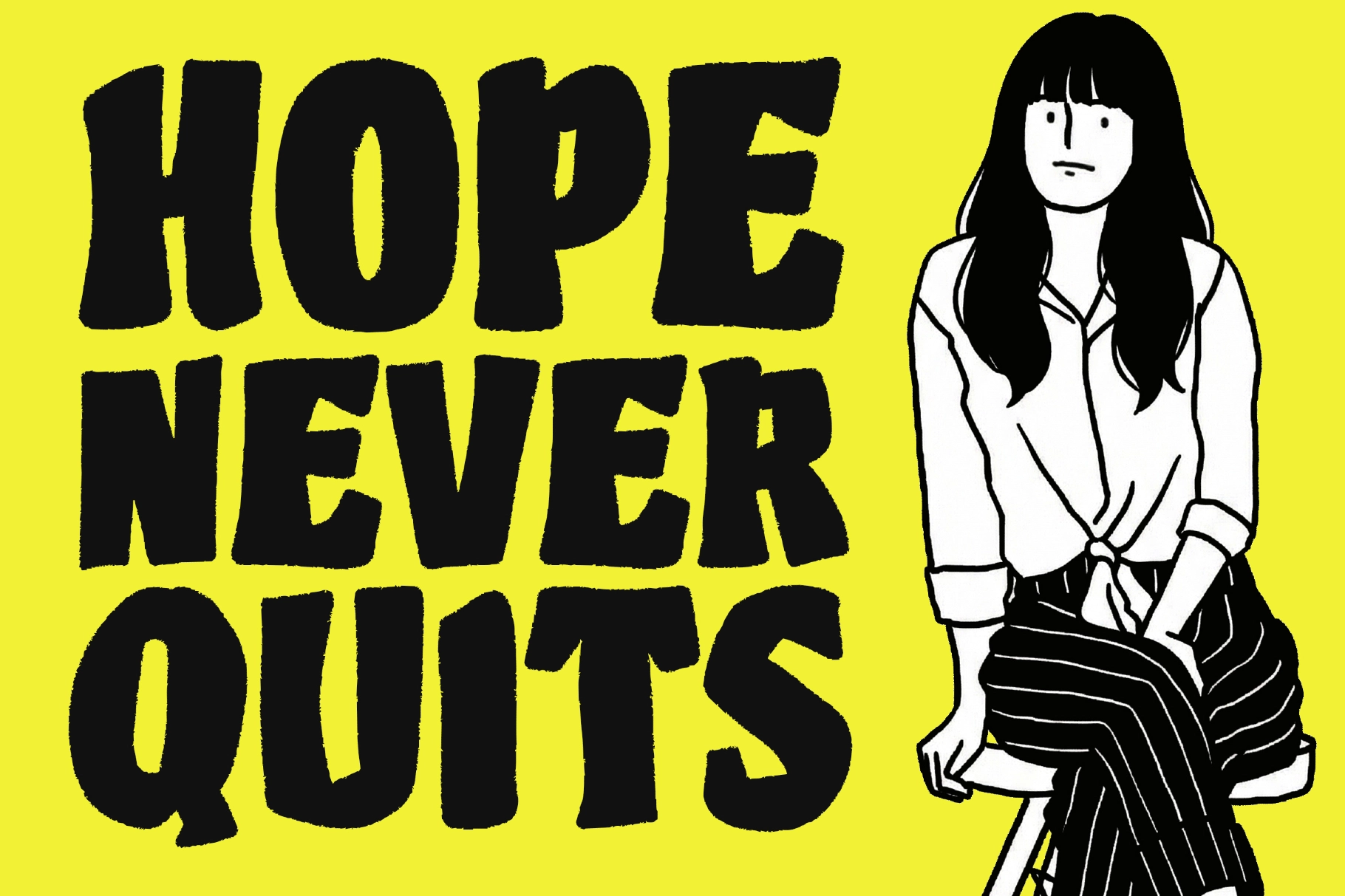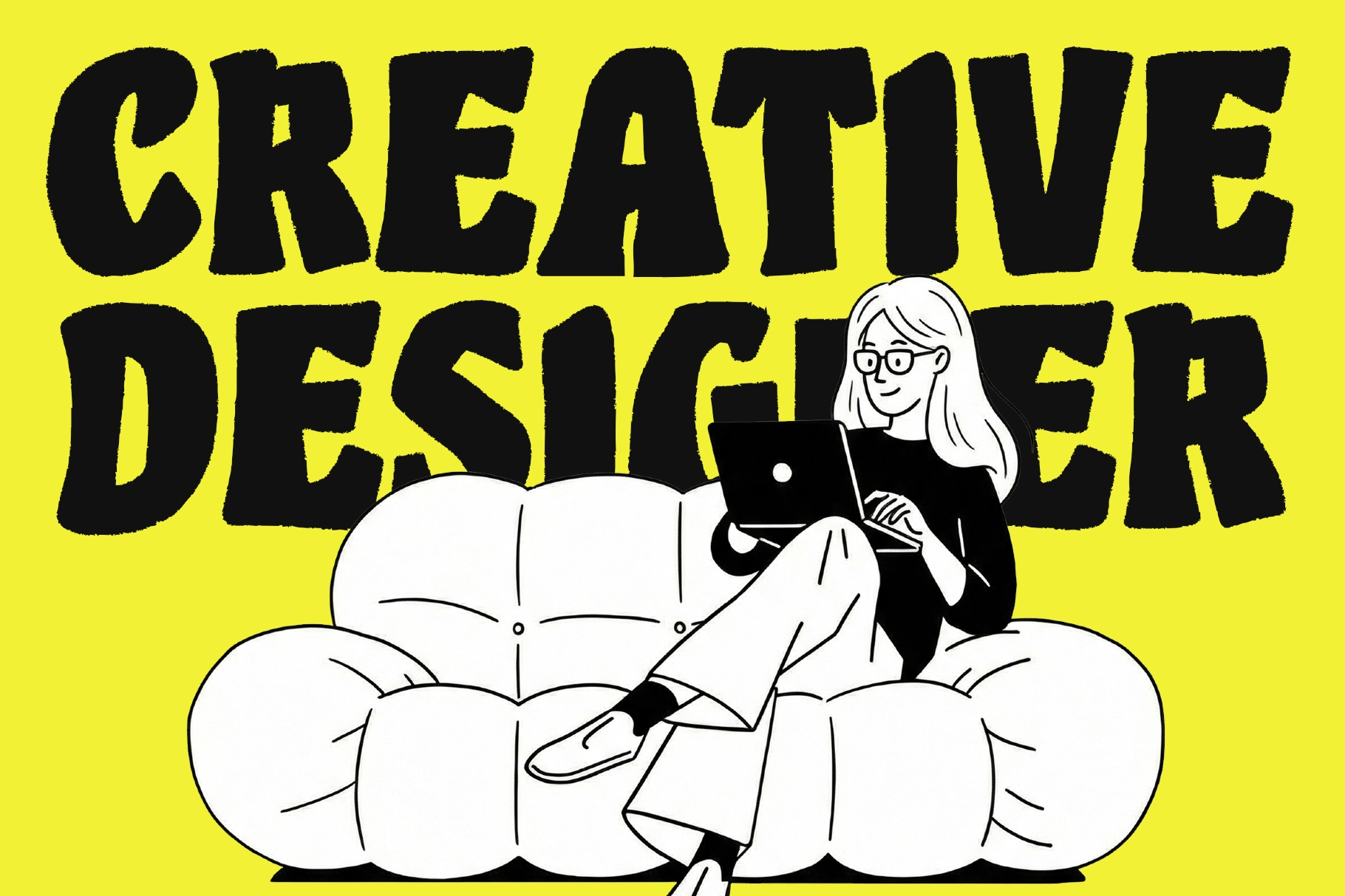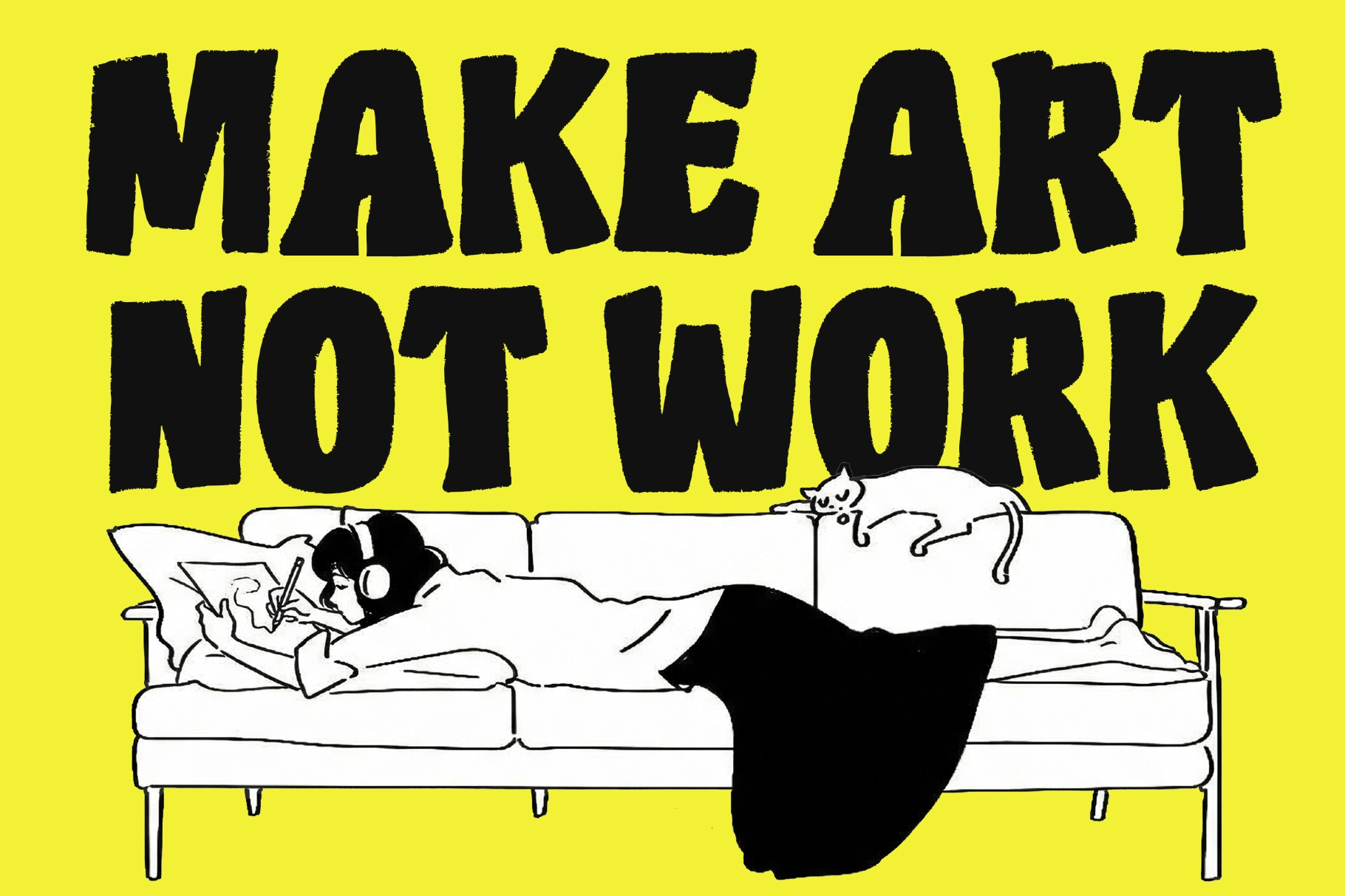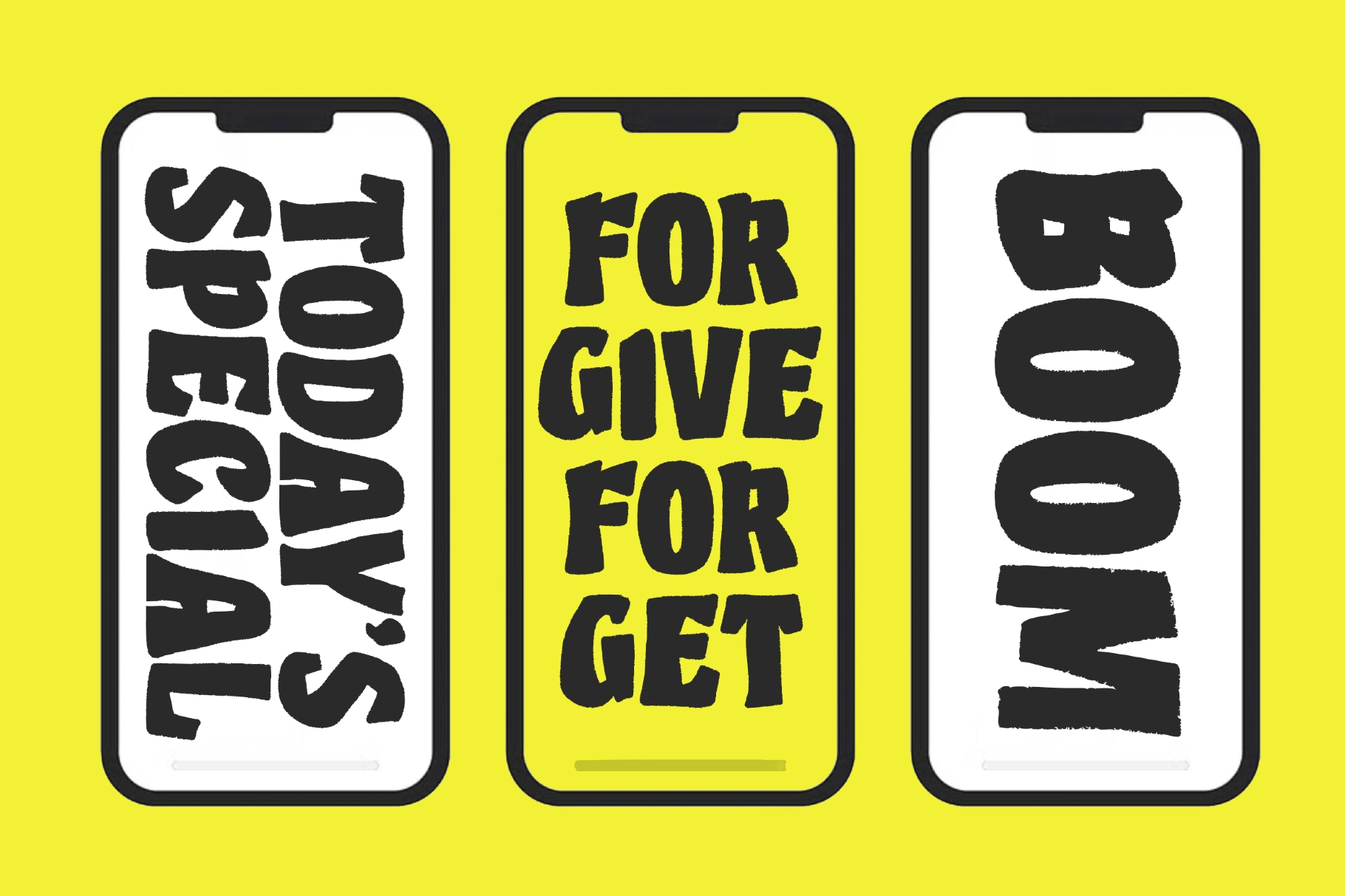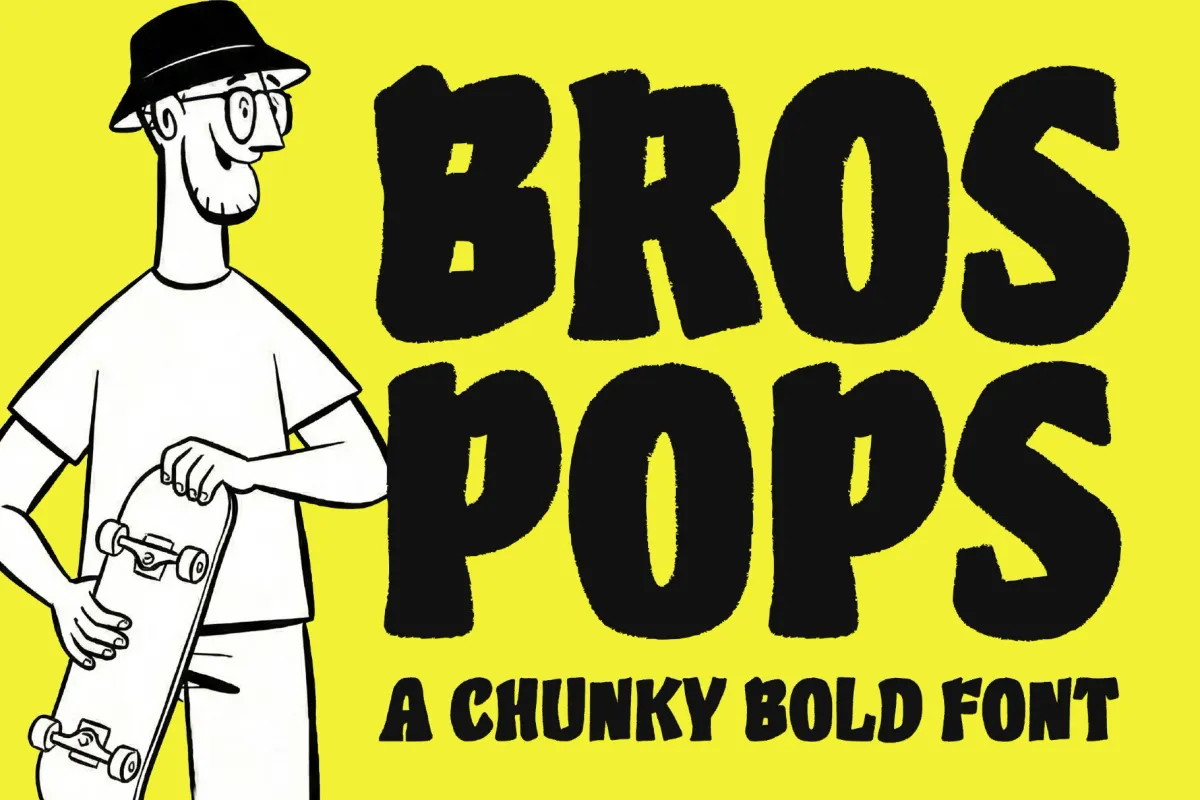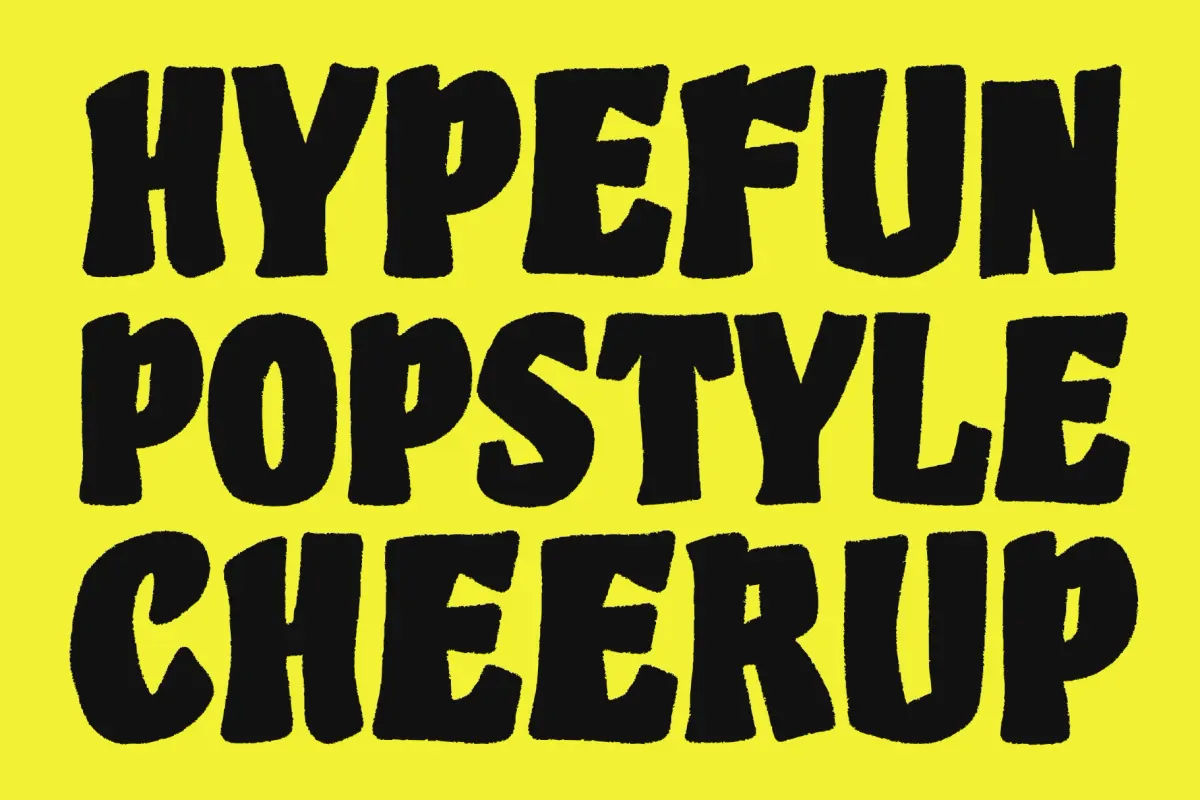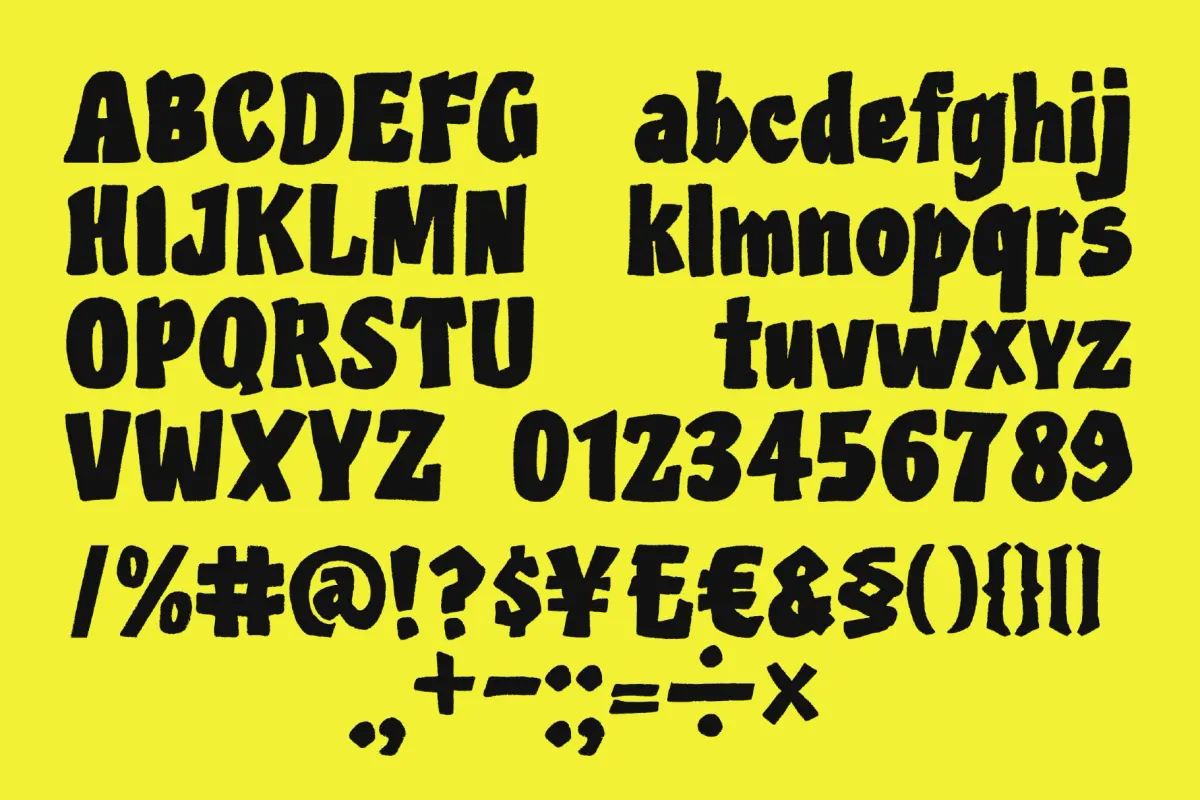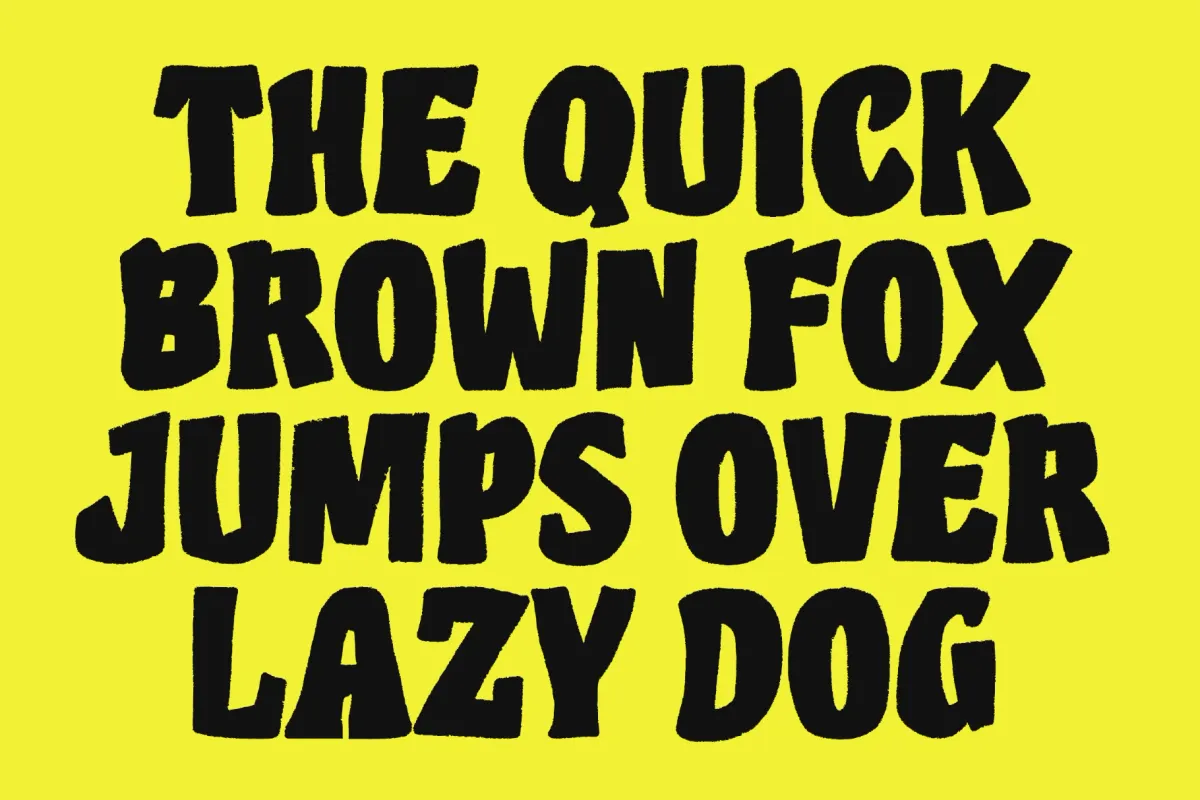
Bros Pops – Chunky Bold Display Font
Bros Pops
Bros Pops is a chunky, bold, and playful display font designed to deliver strong visual impact and a fun personality. Inspired by pop culture, street art, and modern comic-style lettering, this font is perfect for designs that need to stand out instantly.
With its thick strokes, rounded shapes, and slightly irregular forms, Bros Pops feels energetic, friendly, and expressive. It works exceptionally well for eye-catching headlines and bold statements across both print and digital media.
This font is ideal for:
- Posters & headlines
- Logos & branding
- Product packaging
- Social media graphics
- Editorial & cover design
- Stickers, comics, and illustrations
Bros Pops performs beautifully on both bright and dark backgrounds and remains highly legible at large sizes. A great choice for creative, commercial, and personal projects.
Font Features:
- Chunky & Bold Letterforms
- Playful Pop Style
- Strong Visual Impact
- Easy to Read for Headlines
- Suitable for Print & Digital Use
- Basic Latin Multilingual Support